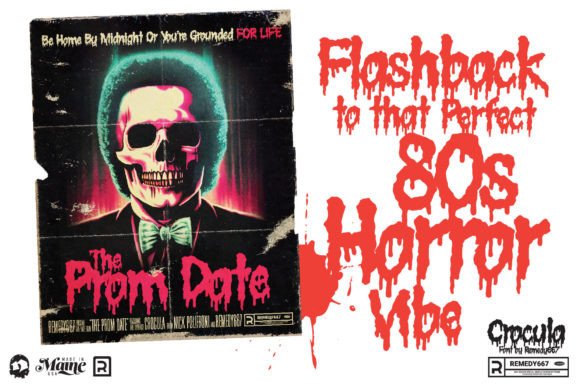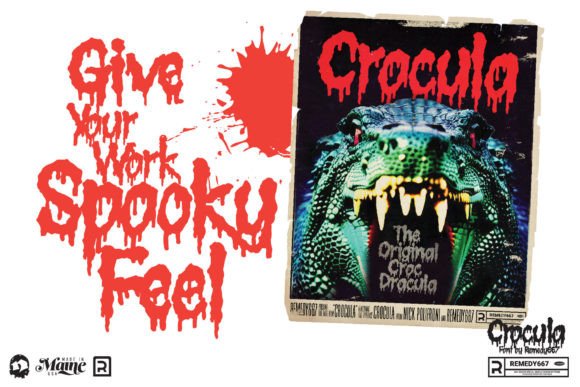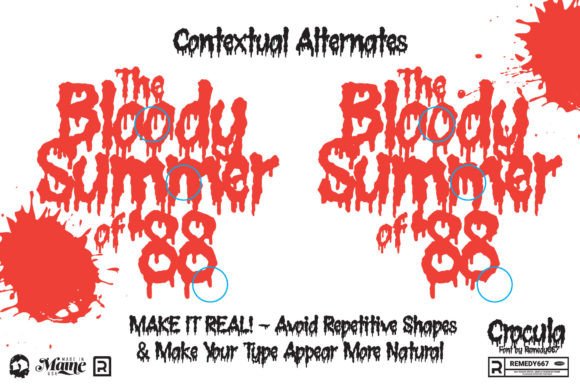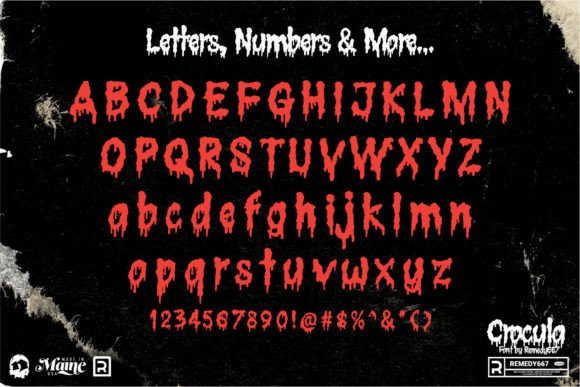
Unleash the Horror with Crocula Font: The Ultimate Choice for Spooky Designs
Step into a world of terror with Crocula, the ultimate choice for horror enthusiasts and creators alike. Inspired by classic horror films, this font brings a spine-chilling touch to any project. Whether you’re working on a spooky poster, a bone-chilling website, or a petrifying headline, Crocula can bring your vision to life.
Inspired by Classic Horror
Crocula font is carefully crafted to evoke the eerie and suspenseful atmosphere of classic horror films. Its design is reminiscent of the iconic titles and posters from the golden age of horror cinema. With Crocula, you can add a touch of nostalgia and authenticity to your designs, making them stand out from the crowd.
Contextual Alternates for a Unique Look
What sets Crocula apart from other horror fonts is its advanced feature set, including contextual alternates. This means that each letter and number can have multiple variations, allowing you to create a truly unique and terrifying look. With contextual alternates, you can add an extra layer of fright to your designs, making them more engaging and memorable.
Natural Variety for a More Organic Feel
Crocula’s design philosophy is centered around creating a more natural and organic feel. By incorporating contextual alternates, the font can mimic the imperfections and variations found in hand-drawn lettering. This approach gives your designs a more human touch, making them more relatable and impactful.
Perfect for Horror Enthusiasts and Creators
Crocula font is designed with horror enthusiasts and creators in mind. Whether you’re a graphic designer, a writer, or a filmmaker, this font can help you bring your vision to life. With Crocula, you can create a wide range of designs, from spooky posters and flyers to bone-chilling websites and social media graphics.
Use Cases for Crocula Font
- Spooky Posters: Create eye-catching posters for horror movies, haunted houses, or Halloween events.
- Bone-Chilling Websites: Add a touch of horror to your website with Crocula font, perfect for horror blogs, gaming sites, or entertainment platforms.
- Petrifying Headlines: Use Crocula to create attention-grabbing headlines for horror-themed articles, blog posts, or social media updates.
- Creepy Crafting: Add a personal touch to your crafting projects, such as horror-themed invitations, cards, or DIY decorations.
Tips for Using Crocula Font
To get the most out of Crocula font, here are some tips to keep in mind:
- Experiment with Contextual Alternates: Take advantage of Crocula’s contextual alternates to create a unique look for your designs.
- Mix and Match: Combine Crocula with other fonts to create a distinctive and eye-catching visual style.
- Play with Colors: Use dark colors, gradients, or textures to enhance the horror effect of your designs.
Crocula font is the ultimate choice for horror enthusiasts and creators looking to add a spine-chilling touch to their designs. With its inspired classic horror films, contextual alternates, and natural variety, Crocula can help you create a truly unique and terrifying look. Give your audience goosebumps and leave an unforgettable impression with Crocula!